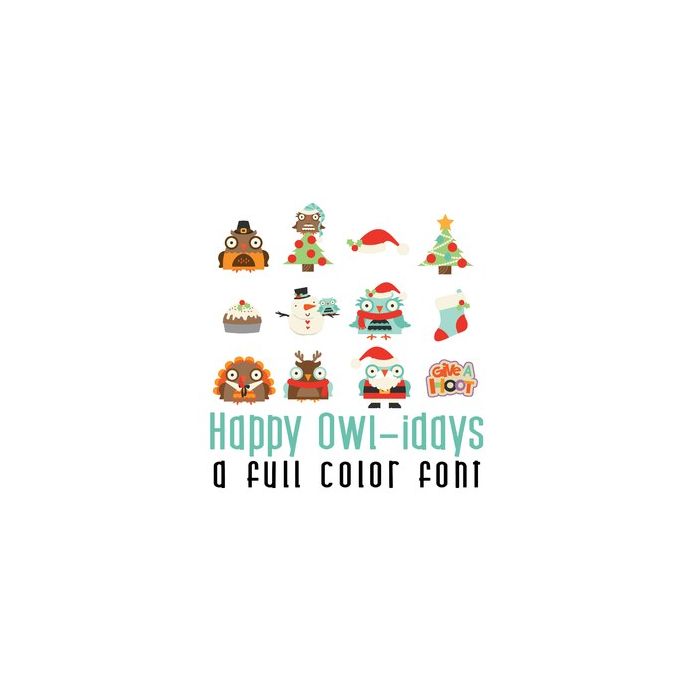
This adorable full-color doodlebat font features 26 adorable owls ready for Thanksgiving and Christmas. Perfect for cards, crafts, gifts, decor, scrapbook pages, planner stickers, and more!